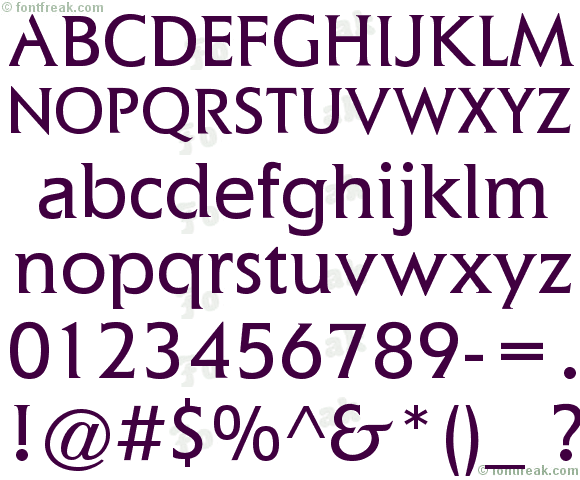
Caprica
About Caprica
Caprica, designed by J. Green, is a contemporary sans-serif font that embodies a sleek and modern aesthetic. Its clean lines and balanced proportions make it a versatile choice for a variety of design projects. The Caprica font features a medium stroke weight with subtle contrasts that enhance its readability and visual appeal. The generous spacing between characters contributes to its airy feel, making it suitable for both digital and print applications.
This font excels in several specific use cases. It is an excellent choice for branding projects, where clarity and modernity are paramount. Caprica works beautifully on restaurant menus, providing a fresh and inviting look that can enhance the dining experience. Its contemporary style also makes it ideal for website headings and promotional materials, capturing attention without overwhelming the viewer. Additionally, the font can be effectively utilized in social media graphics, where engaging visuals are crucial for audience interaction.
The target audience for Caprica includes graphic designers looking for a stylish yet functional typeface, small business owners aiming to establish a modern brand identity, and content creators seeking a fresh font for their digital projects.
What sets Caprica apart is its balance of elegance and simplicity. The font's modern design allows it to stand out while remaining approachable, making it a valuable asset for any designer's toolkit. Whether you're creating a sleek logo or an eye-catching advertisement, the Caprica font free download offers a unique blend of style and functionality that can elevate your projects to new heights. Embrace the potential of Caprica and let your creativity shine through this exceptional typeface.